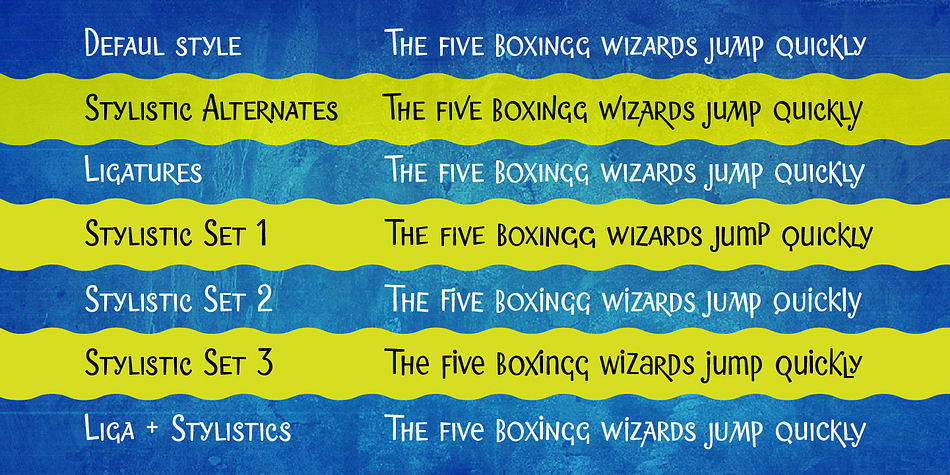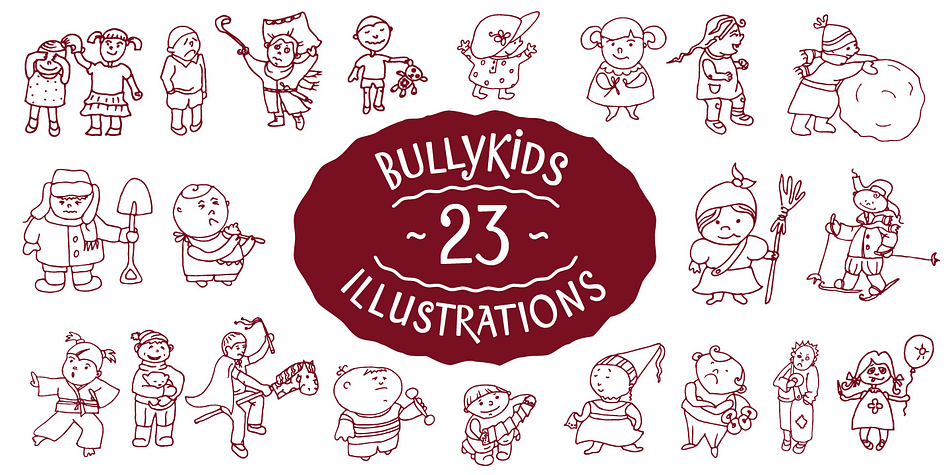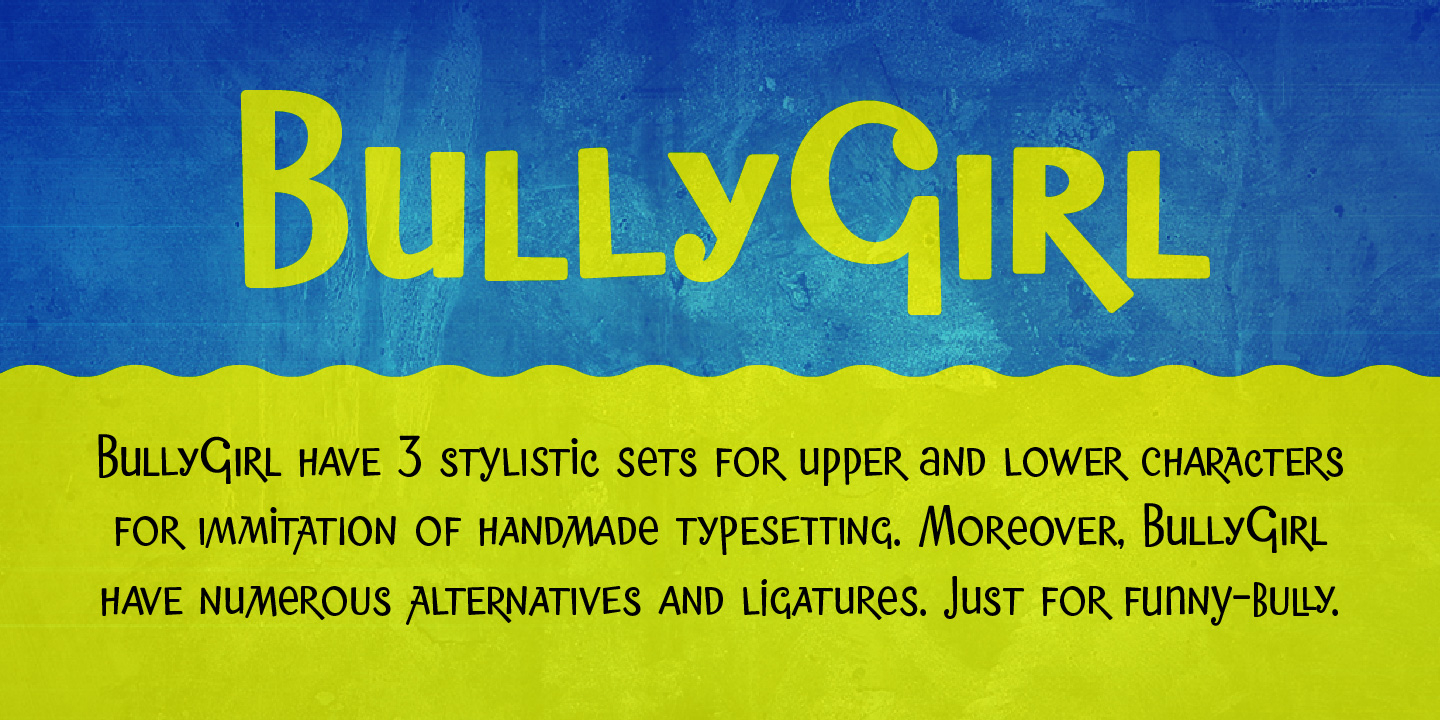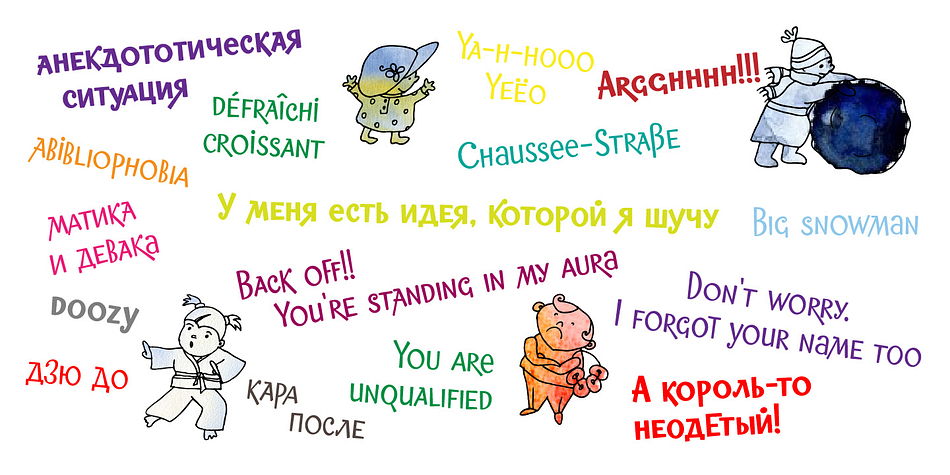
Bully Girl is a dingbat and display sans font family. This typeface has three styles and was published by Gaslight.
Bully Girl is a two weight irregular and rollicking font. It has 3 stylistic sets for upper and lower characters for immitation of a handmade typesetting. If this is not enough, you can use some characters (like ABCEHKMOPTX) from the cyrillic code page. Moreover, BullyGirl has numerous alternatives and ligatures. Just for funny-bully. Included as well is an additional symbol font with bully characters.